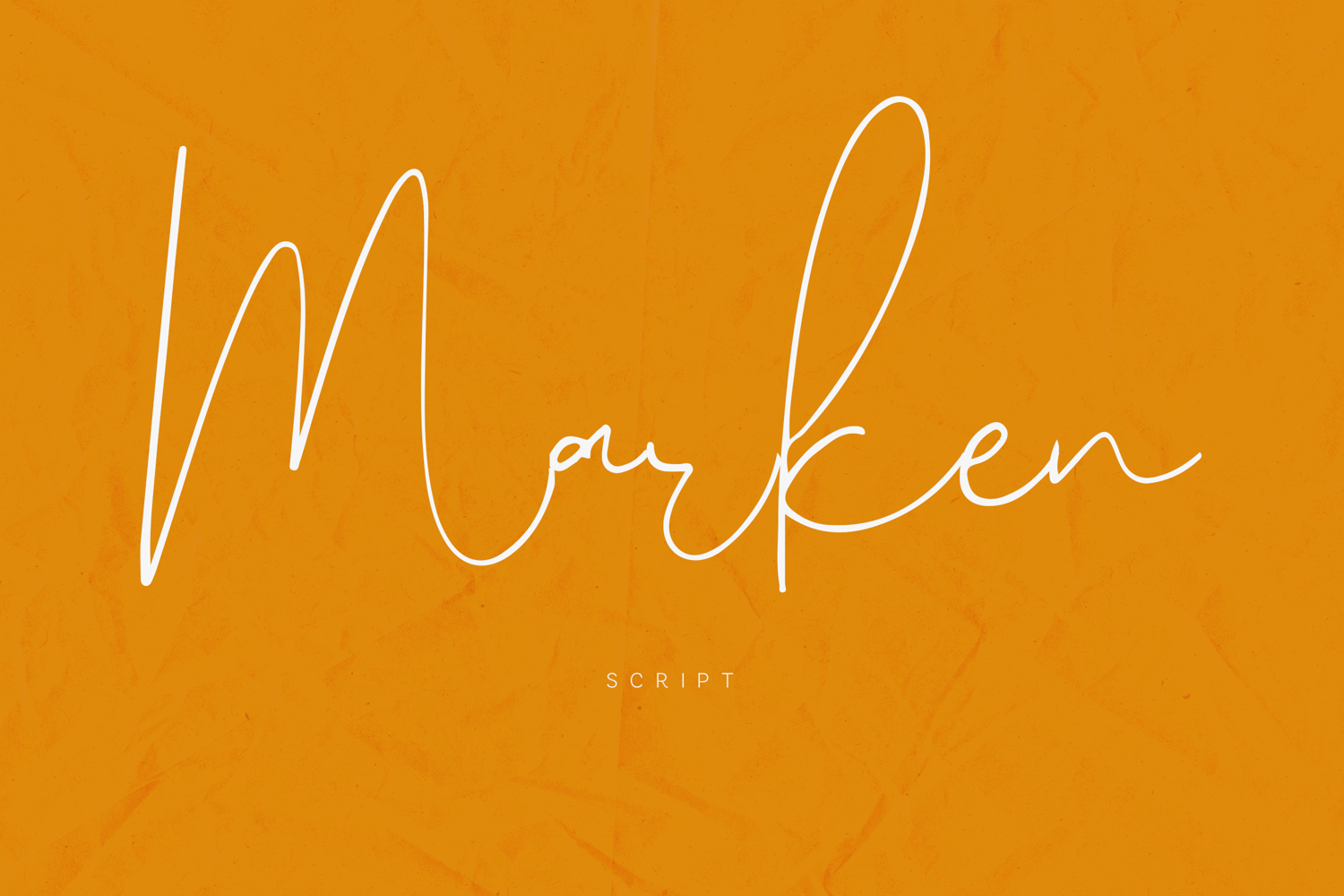
Marken Handwritten Script Font
Marken is a modern handwritten script font designed with smooth curves, natural flow, and refined simplicity. The letterforms feel light and effortless, capturing the authenticity of real handwriting while maintaining a clean and elegant structure.
Each character is carefully shaped to create a continuous and fluid rhythm. The strokes are soft and slightly varied, giving the font a natural handwritten appearance that feels both relaxed and sophisticated. The connections between letters are smooth and balanced, allowing words to flow seamlessly across any layout.
Marken brings a subtle elegance without being overly decorative. Its minimal style makes it highly versatile, suitable for both expressive and clean typographic compositions. The font maintains readability while still offering a strong handwritten character.
This typeface works especially well in:
• signature-style typography
• logo design
• branding projects
• social media visuals
• packaging design
• invitations and cards
• modern typography layouts
• creative compositions
Marken includes uppercase letters, lowercase letters, numbers, punctuation, symbols, and multilingual support, making it suitable for a wide range of design applications and international use.
With its natural flow, clean strokes, and elegant handwritten style, Marken is a script typeface designed to bring warmth, personality, and modern simplicity into your typography.